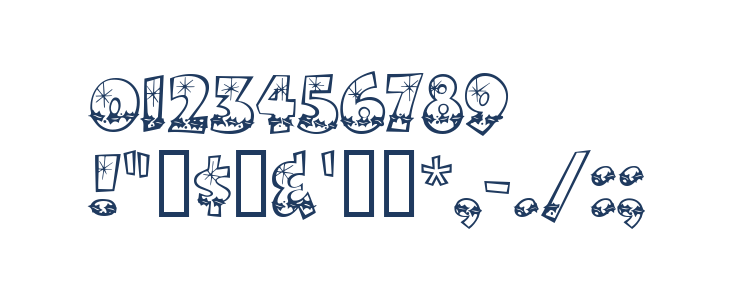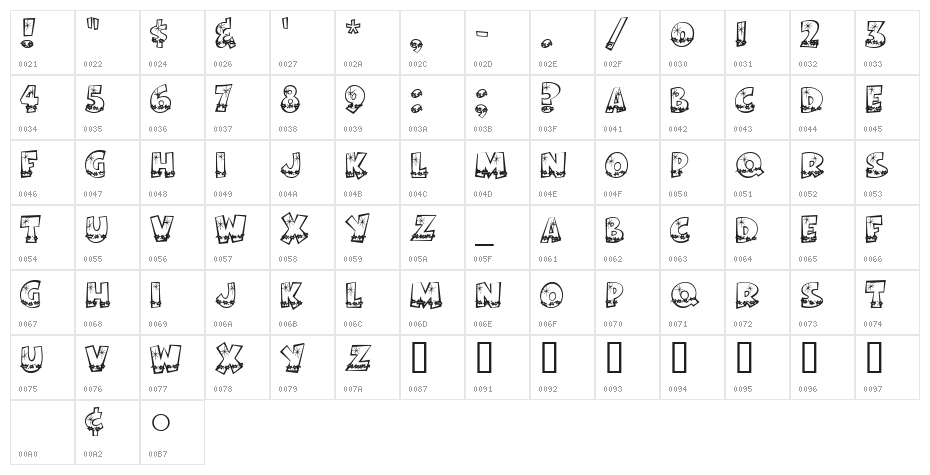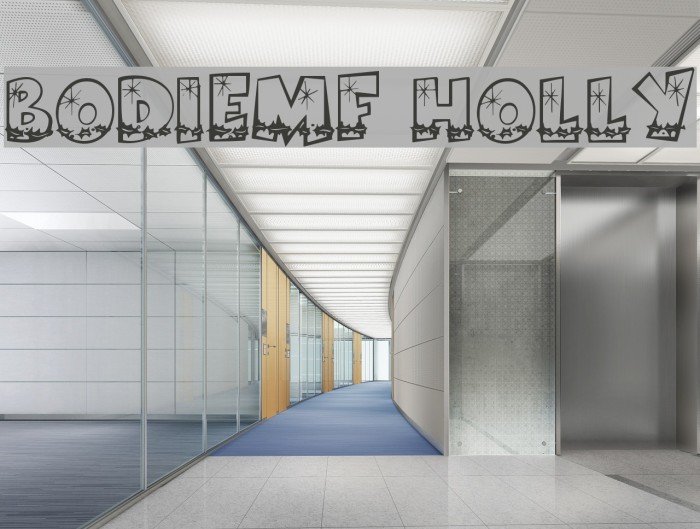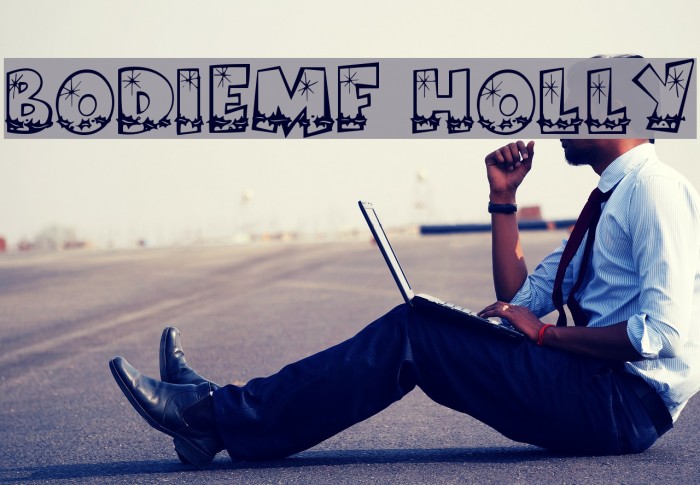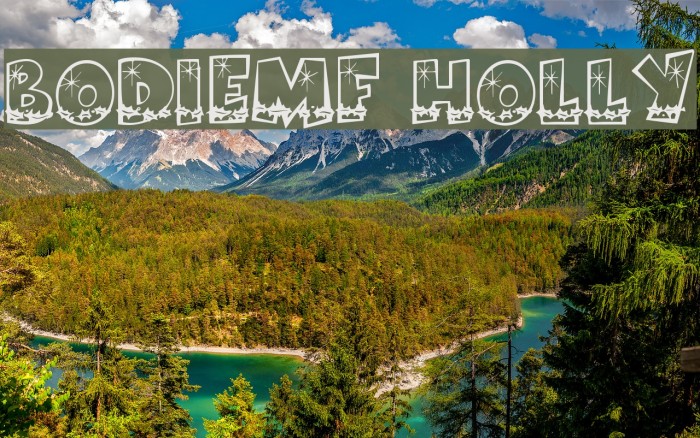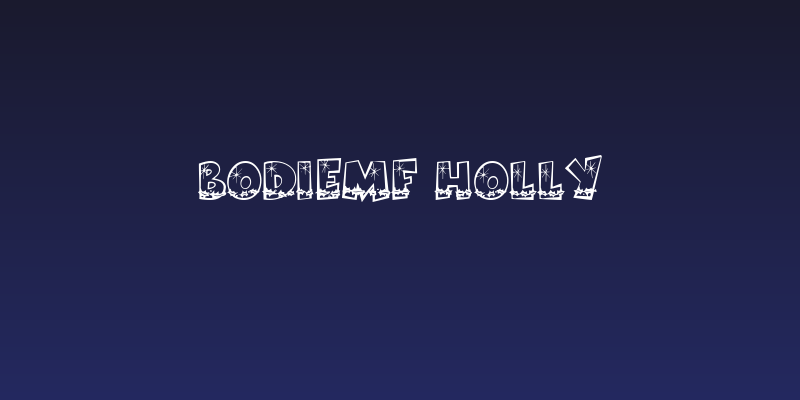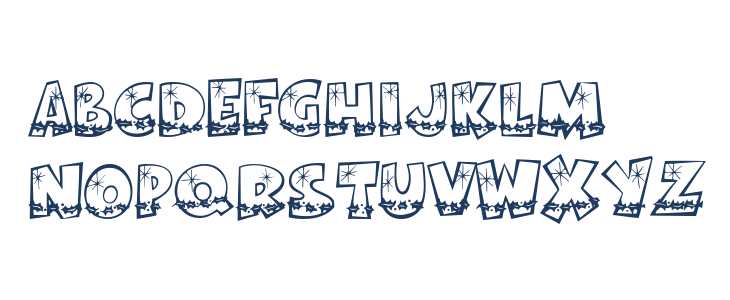
BodieMF Holly Font
BodieMF Holly Description
This playful and festive font features bold, blocky letters adorned with holly leaves and berries, giving it a distinctly holiday-themed appearance. The characters are outlined with a thick black border, enhancing their visibility and adding a touch of whimsy. The interior of each letter is filled with decorative elements that resemble snowflakes and holly, creating a lively and cheerful aesthetic. This font is perfect for capturing the spirit of the holiday season, making it ideal for festive designs and projects. Its unique style is both eye-catching and fun, making it suitable for a variety of creative applications.
| Overall Style | Festive |
| Proposed Projects | Ideal for holiday cards, festive banners, seasonal advertisements, and Christmas-themed designs. |